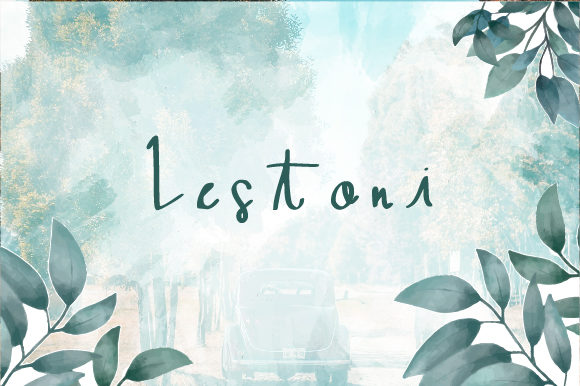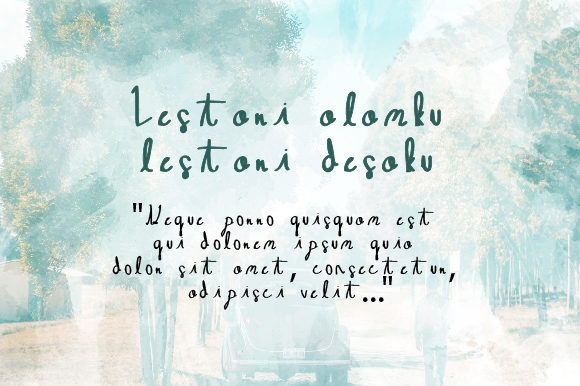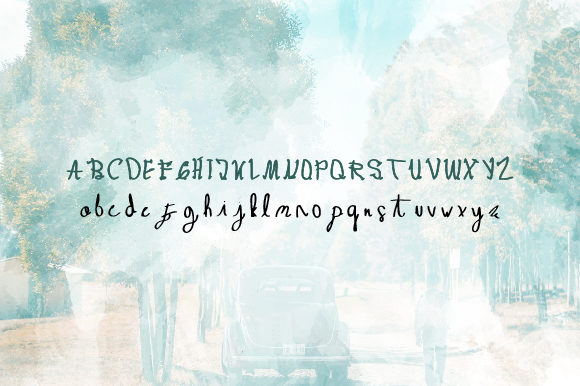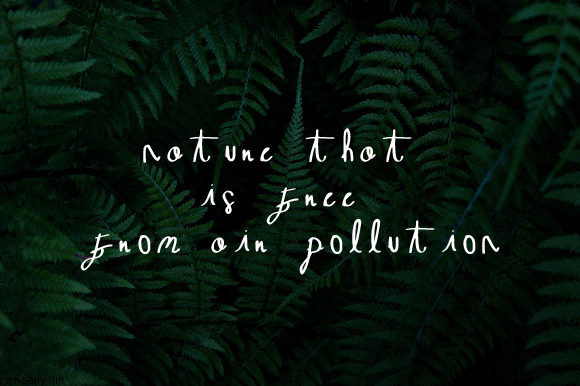
About Lestari Font
Lestari is a cute and quirky handwritten font. Add this beautiful font to each of your creative ideas and notice how it makes them stand out!